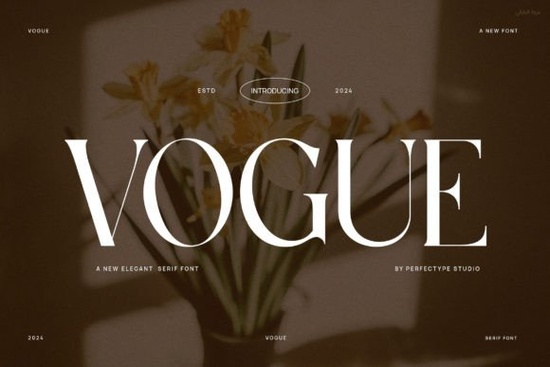
When it comes to adding a touch of elegance and sophistication to your designs, the Vogue Font is an excellent choice. This classy serif font brings a refined and polished look to any project, whether you're working on a fashion magazine, stylish invitations, or upscale branding. With its sleek lines and sophisticated curves, Vogue exudes confidence and sophistication, making it perfect for both timeless and modern designs.
Why Choose Vogue Font for Your Projects?
The Vogue Font stands out for its versatility and elegance. It's not just about having a beautiful typeface; it's about using a font that can enhance the overall aesthetic of your design. Whether you're a designer, crafter, print-on-demand seller, or small business owner, Vogue can help you create a professional and high-end look. Its clean and classic style makes it suitable for a wide range of applications, from wedding invitations to luxury brand logos.
How Does Vogue Compare to Other Serif Fonts?
While there are many serif fonts available, Vogue Font has a unique character that sets it apart. For instance, if you compare it to Orvella Font, you'll notice that Orvella has a more traditional and formal feel, whereas Vogue offers a more contemporary and sleek appearance. Similarly, Marquis is another elegant option, but it has a more decorative and ornate style compared to the understated elegance of Vogue.
For those who prefer a more minimalist approach, Brelist Font might be a good alternative. Brelist is known for its simplicity and readability, making it a great choice for longer text blocks. On the other hand, Healing Font has a more organic and flowing style, which can add a different kind of charm to your designs. Lastly, Fresh Mango Font brings a playful and vibrant energy, which is quite different from the sophisticated and refined look of Vogue.
Using Vogue Font in Different Design Projects
The Vogue Font is incredibly versatile and can be used in a variety of design projects. Here are some ideas on how you can incorporate it into your work:
- Fashion Magazines: Use Vogue for headlines and subheadings to give your magazine a high-end and polished look. Pair it with a clean sans-serif for body text to maintain readability while keeping the overall design elegant.
- Stylish Invitations: Whether you're designing wedding invitations, event flyers, or party announcements, Vogue adds a touch of sophistication. Combine it with subtle floral elements or geometric patterns to create a balanced and visually appealing design.
- Upscale Branding: For luxury brands, Vogue can be a key element in creating a strong and memorable identity. Use it for logos, business cards, and marketing materials to convey a sense of refinement and quality.
Tips for Maximizing the Impact of Vogue Font
To get the most out of the Vogue Font, here are a few tips:
- Pair Wisely: Choose complementary fonts that don't overshadow Vogue. A clean sans-serif like Arial or Helvetica can work well for body text, allowing Vogue to stand out in headings and titles.
- Use Adequate Spacing: Ensure there is enough space between letters and lines to maintain readability. This is especially important for longer text blocks.
- Test on Different Backgrounds: Make sure the font looks good on various backgrounds, including light and dark colors, as well as textured and patterned surfaces.
- Experiment with Sizes: Play with different font sizes to find the right balance for your design. Vogue can be used effectively in both large and small sizes, depending on the context.
Where to Find and Use Vogue Font
You can find the Vogue Font and other high-quality serif fonts at Creative Fabrica. This platform offers a wide selection of fonts, graphics, and templates, making it a one-stop shop for all your design needs. Be sure to explore their collection and see how Vogue can fit into your next project.
Final Thoughts
The Vogue Font is a fantastic choice for anyone looking to add a touch of elegance and sophistication to their designs. Its versatility and refined style make it suitable for a wide range of projects, from fashion magazines to upscale branding. By following the tips and ideas shared in this article, you can effectively use Vogue to create stunning and professional-looking designs.